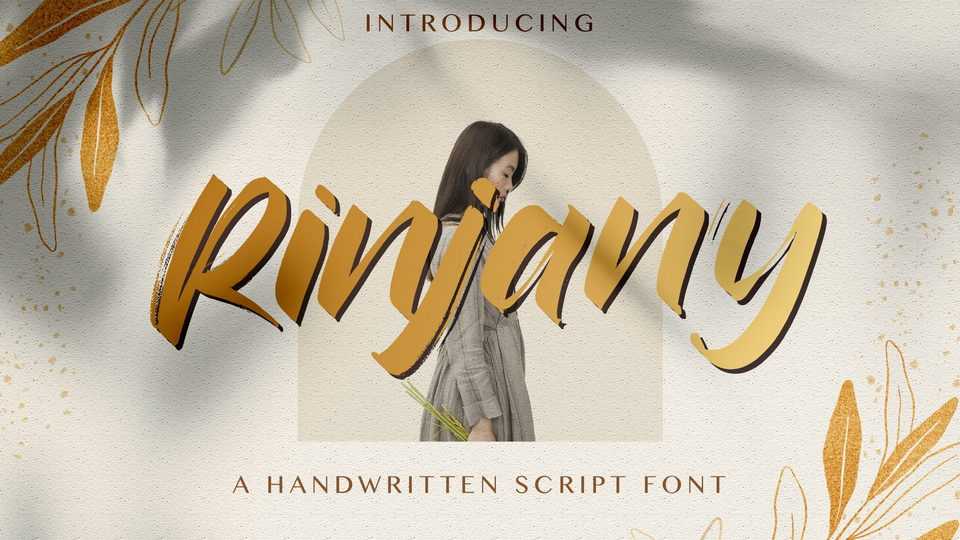
Download Rinjany font, a bold textured handbrush typeface. With its unique and grungy style Rinjany is perfect for posters, t-shirt designs, packaging and more.